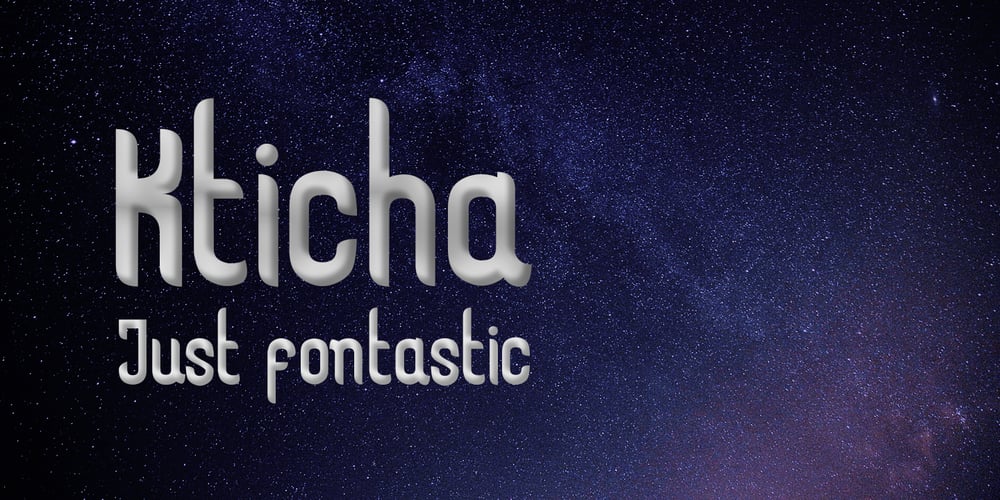
Kticha
Kticha font
Kticha Font Family was designed by Tim Soroka and published by Typink. Kticha contains 6 styles and family package options. Excellent futuristic font with pretty rounded angles will fit any title or heading. It supports more than 20 European languages. This font is unique for it’s elegant and thin letters. Font’s idea came to the designer in the late autumn when tender yellow leaves fell to his hands. The combination of straight lines and bows had sparked a thought about the font, that could be used as awesome decoration.